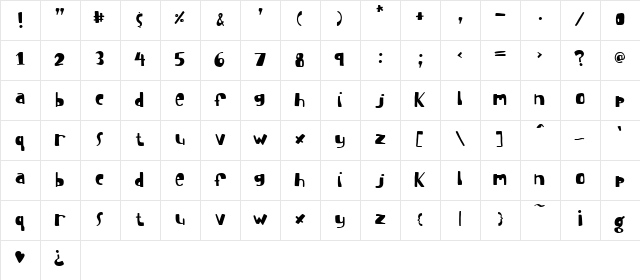
I suck at golf Regular
Foundry: [Divide By Zero] Fonts
Designer: Tom Murphy 7
Design Context for I suck at golf
I suck at golf is a composed and adaptable typeface that performs quietly and consistently across a wide range of design contexts.